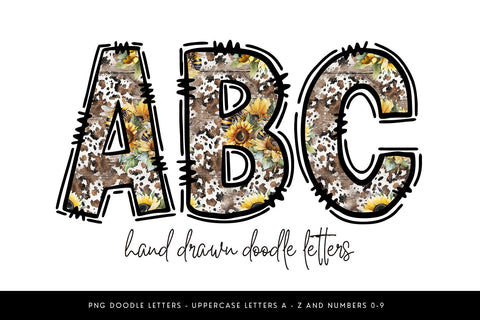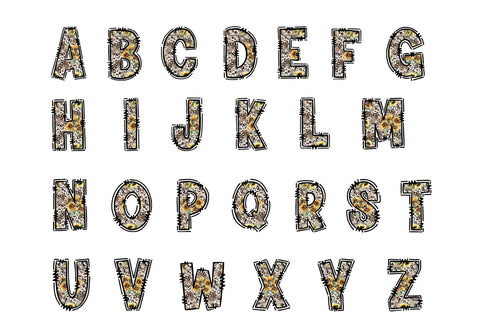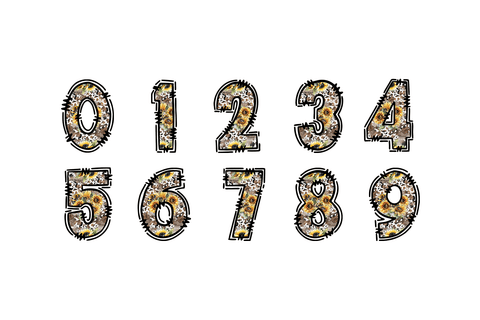
Cow Print Sunflower Doodle Alpha PNG
Blend rustic charm with sunny cheer using this completely unique digital alpha set! This immediate download includes all uppercase letters A-Z and numbers 0-9 as high-resolution PNG files with transparent backgrounds. Each letter features a bold, hand-drawn doodle outline filled with a playful cow print pattern layered with vibrant yellow sunflowers. Use these versatile files for DIY sublimation on western apparel, farmhouse mugs, and rustic signs, or for adding personalized lettering to any craft project with a distinct country aesthetic.
✦ Uppercase letters A-Z
✦ Numbers 0 - 9